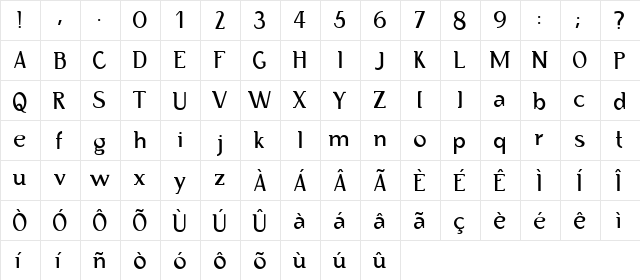
Bertolt Brecht Regular
| Foundry | Thiago Matsunaga |
| Designer | Thiago Matsunaga |
Design Context for Bertolt Brecht Typeface
Bertolt Brecht is a composed and adaptable typeface that performs quietly and consistently across a wide range of design contexts.